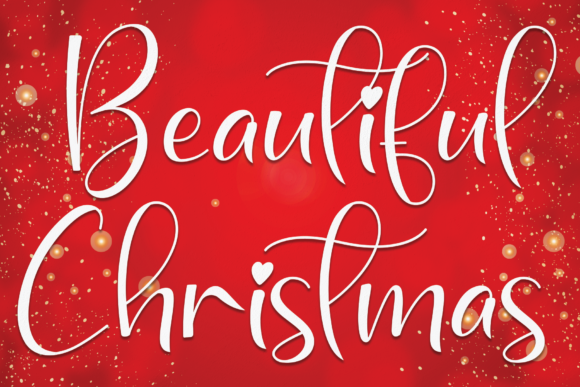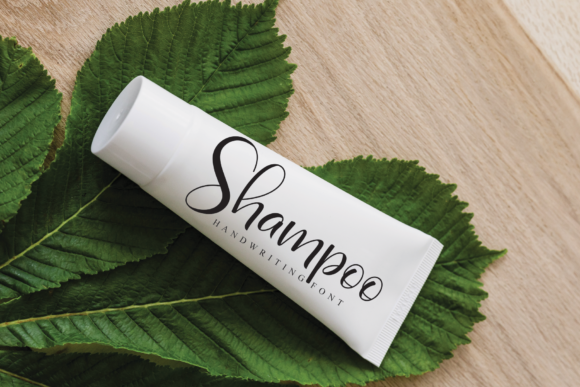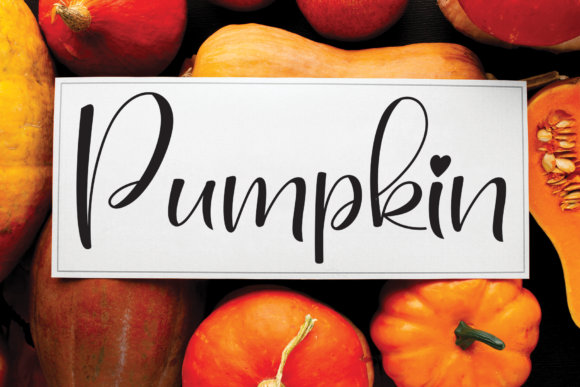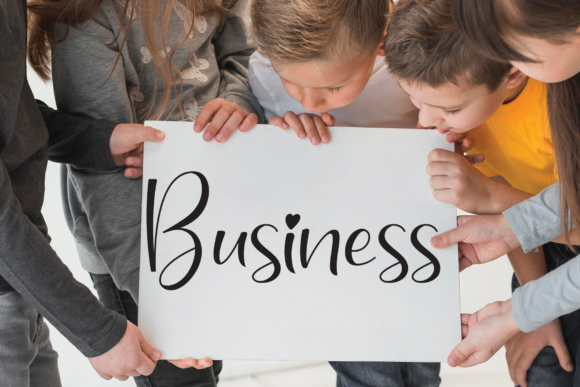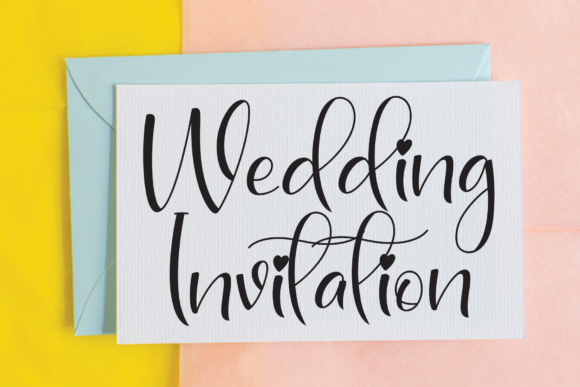
Beautiful Christmas Font
Beautiful Christmas is a trendy and delicate script font with accents of a heart on some letters to add a touch of romance! This font is perfect for wall displays, wedding invitations, social media post logos,
advertisements, product packaging, product designs, labels, photography, watermarks, invitations, stationery, and any project that requires a personal handwritten style font.